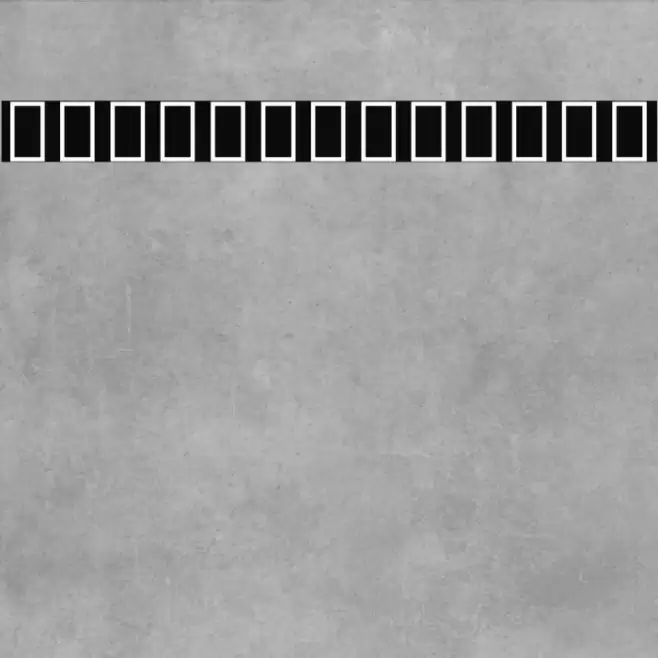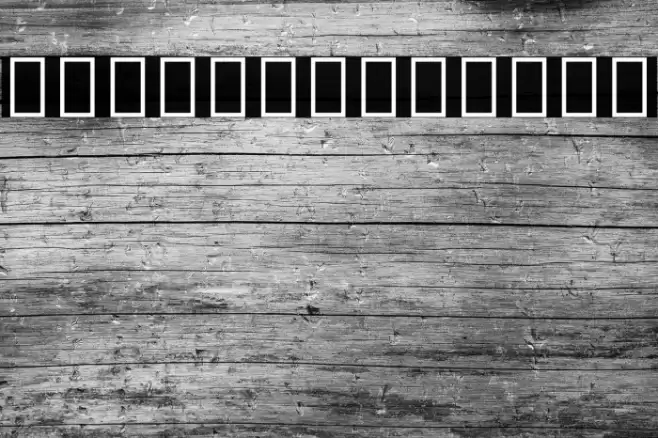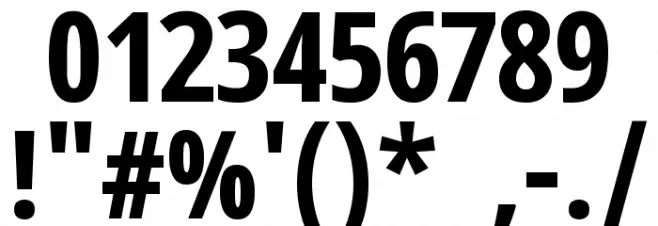
Noto Sans Sinhala UI Condensed Bold Font
Noto Sans Sinhala UI Condensed Bold Description
This font is a bold, condensed typeface with a modern and clean aesthetic. It features strong, uniform strokes that provide a sense of stability and clarity. The characters are designed with a consistent width, making it ideal for creating a cohesive look across various applications. The numerals are clear and distinct, ensuring readability even at smaller sizes. Special characters are well-defined, maintaining the overall boldness and clarity of the typeface. This font is particularly suitable for digital interfaces and user interfaces where space is limited, yet readability is crucial.
A bold, condensed typeface with a modern and clean design from Uncategorized fonts.
- Proposed Projects: Ideal for digital interfaces, user interfaces, headlines, and signage where space is limited.
- Use Case: Headlines, User Interfaces, Digital Displays